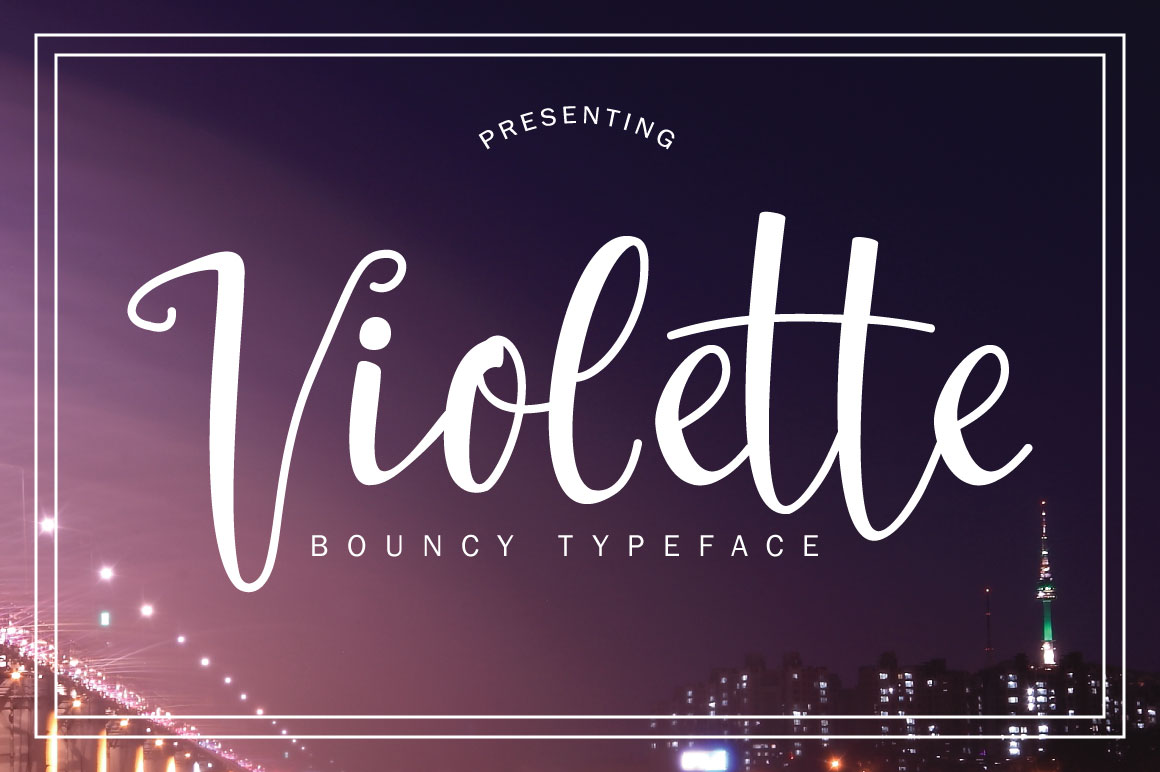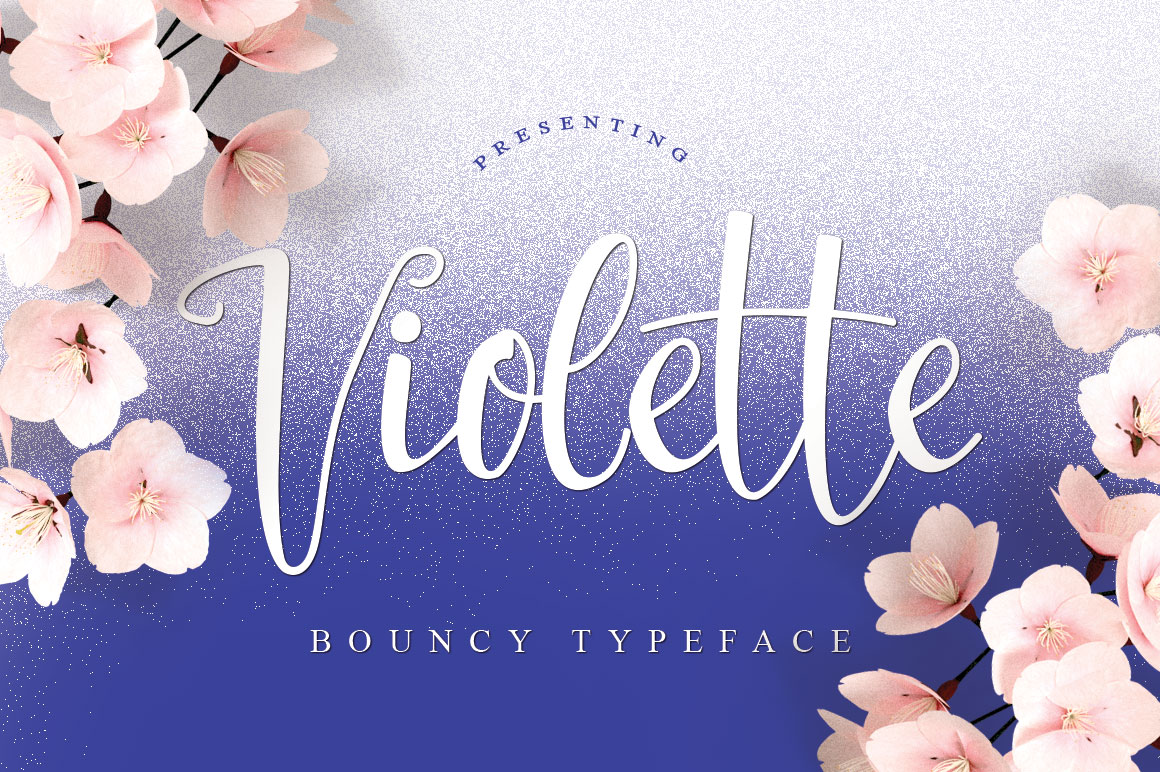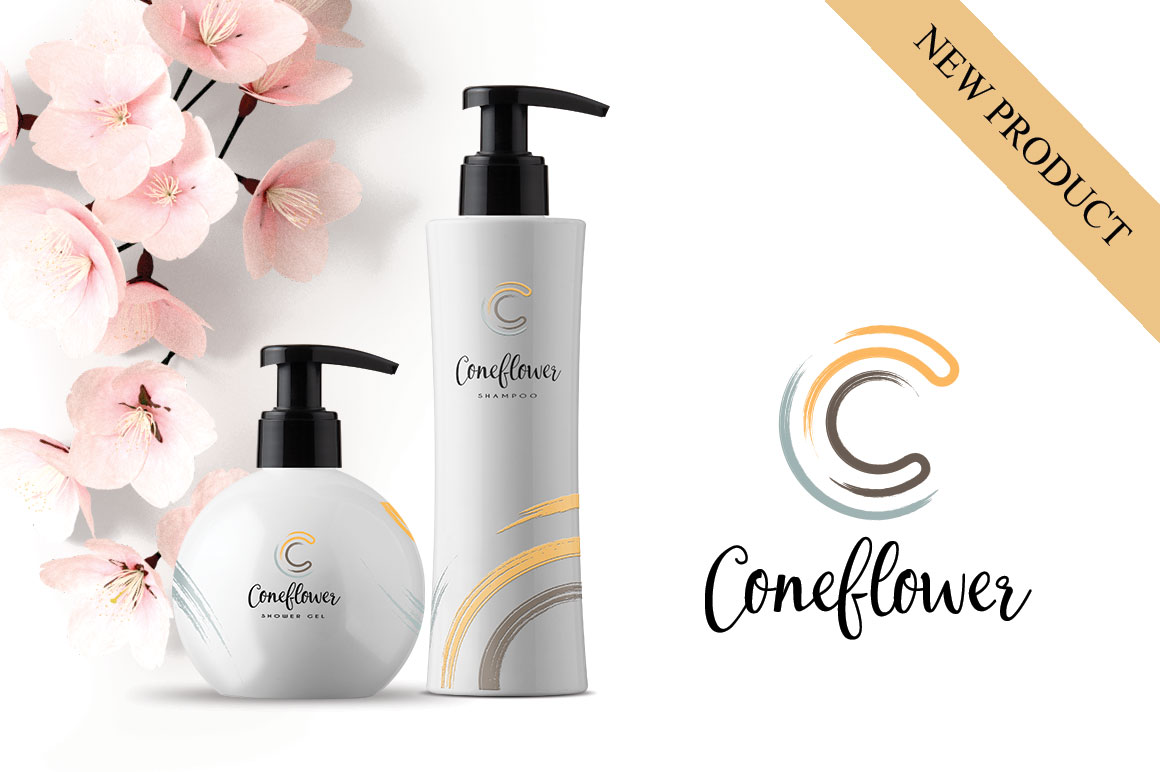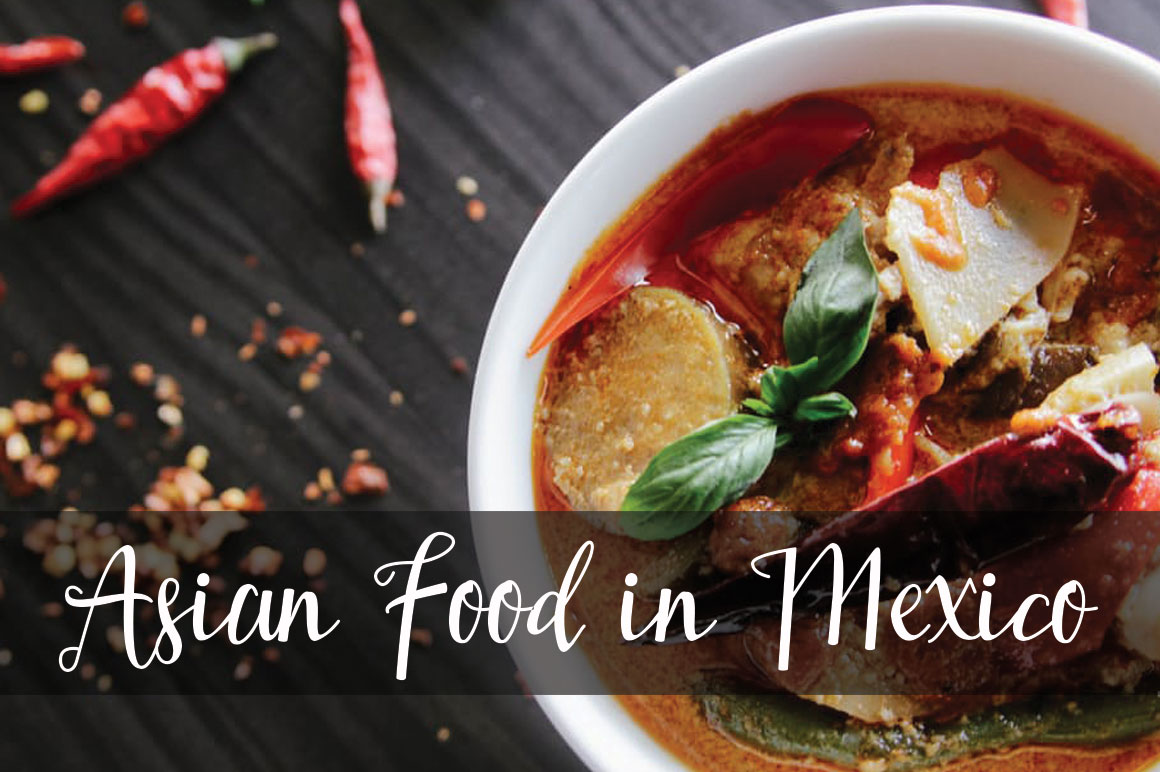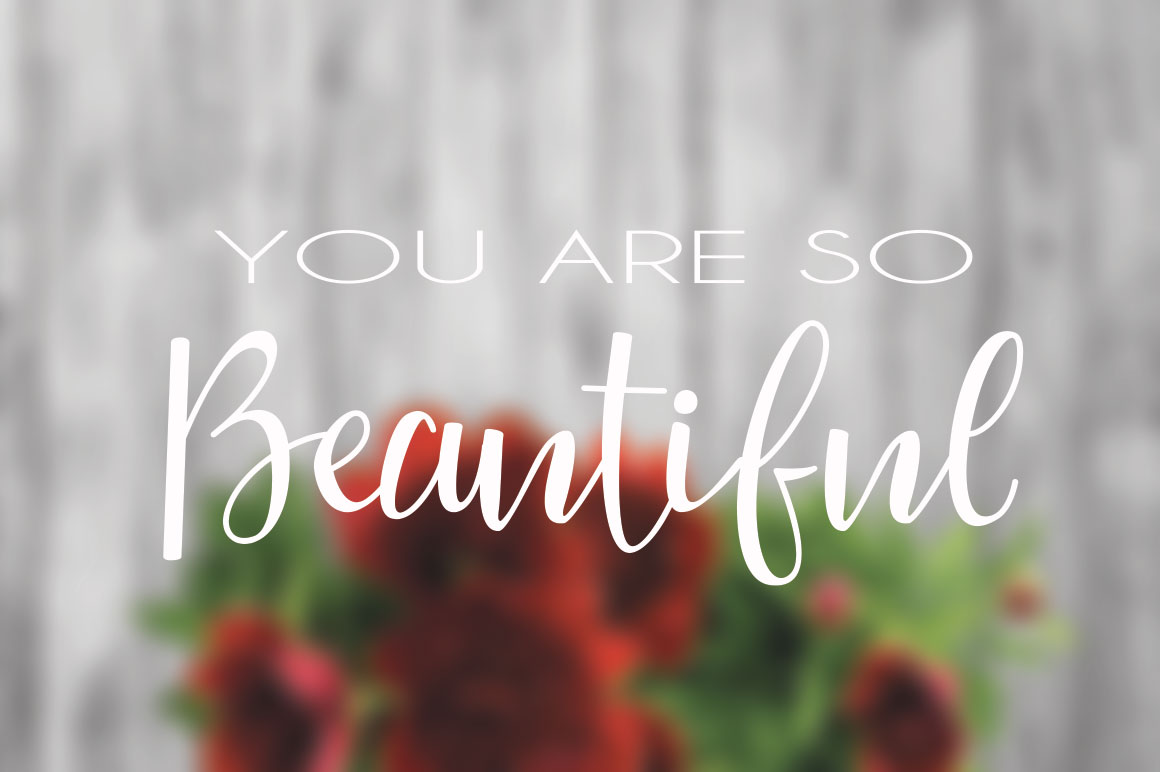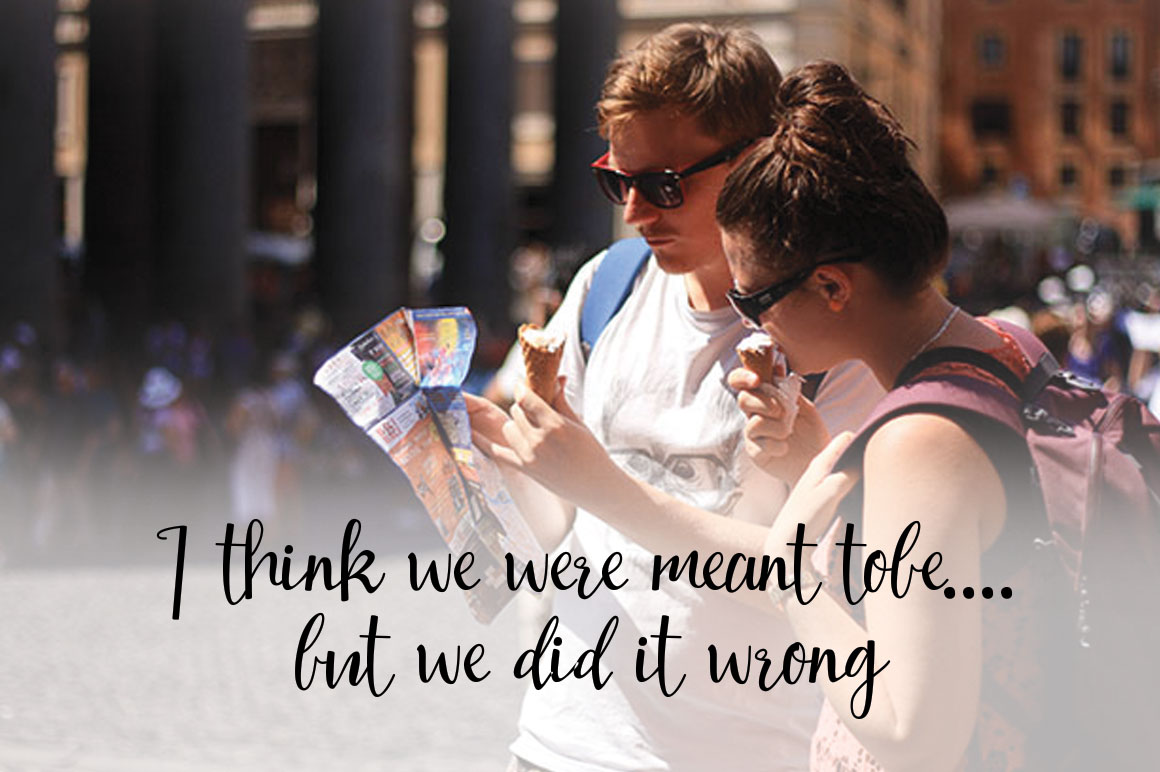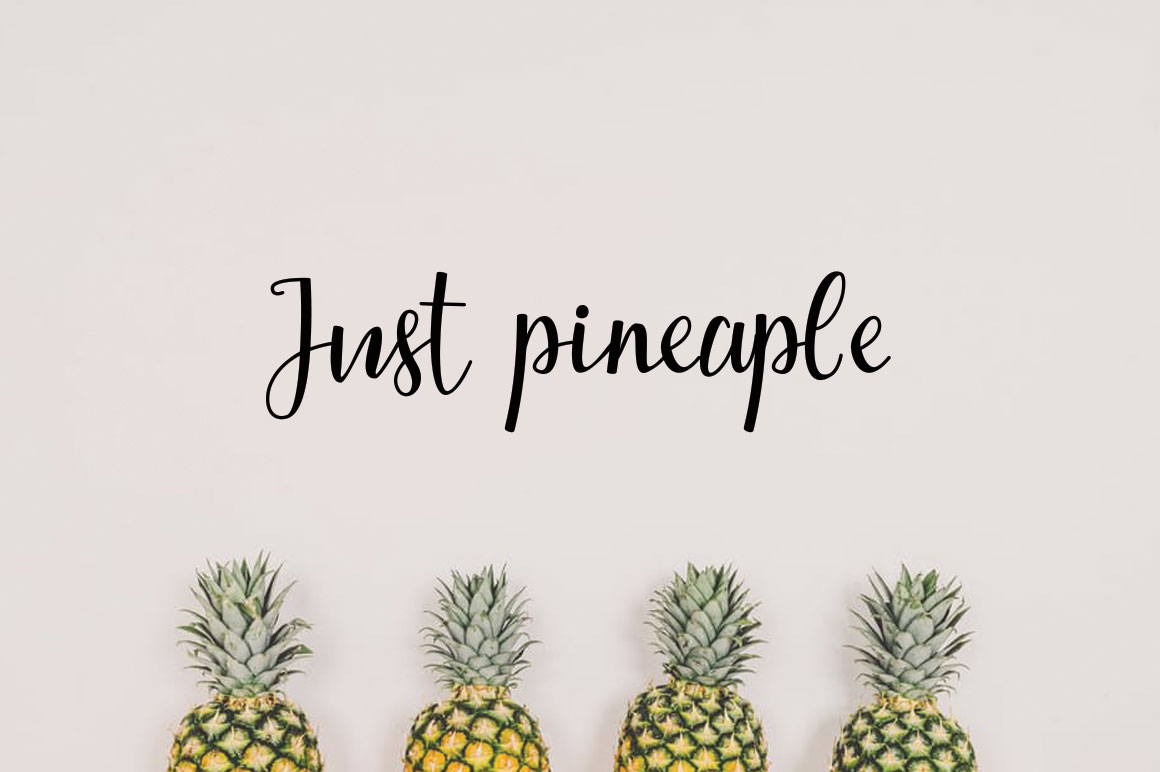
HomeScript FontsViolette Font Script Fonts Violette Font FacebookXPinterestWhatsApp Violette Font Poster 2 Violette Font Poster 3 Violette Font Poster 4 Violette Font Poster 5 Violette Font Poster 6 Violette Font Poster 7 About Violette Font Violette is a stunning script which has a flowing look & feel. DOWNLOAD ON CREATIVE FABRICAThis font is sold and delivered by Creative Fabrica. Font Canyon may earn a commission if you buy through this link. People also explored Vintage Donut Font Kostan Font Face Wash for Men Background Mc Tellyus Font Toniya Smith Font Lady Writer Font Straight Signature Font Adequate Culting Font 296 0 TagsViolette Font Previous articleStay Beautiful FontNext articleBulgatti Font LEAVE A REPLY Cancel reply Comment: Please enter your comment! Name:* Please enter your name here Email:* You have entered an incorrect email address! Please enter your email address here Website: Save my name, email, and website in this browser for the next time I comment. Personal Use Free Edo SZ Personal Use Free Read more about this font Brittish State Personal Use Free Read more about this font Spectrashell Personal Use Free Read more about this font Soria Personal Use Free Read more about this font BLOG Where to Buy American Fonts Online in 2024 Where to Buy American Fonts Online: The Ultimate Guide for 2024 Looking for the perfect American font to elevate your design projects? You're in the... Fonts That Capture the Spirit of New York City Transform Your Website: Elevate Your Typography with 7 Best Web Font Generators How to Cut Any Font on Cricut: Convert a Font to SVG (Free)